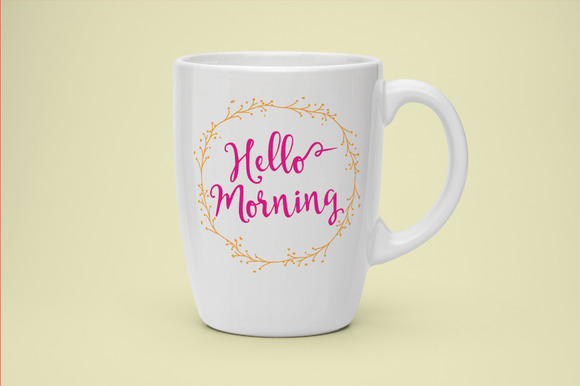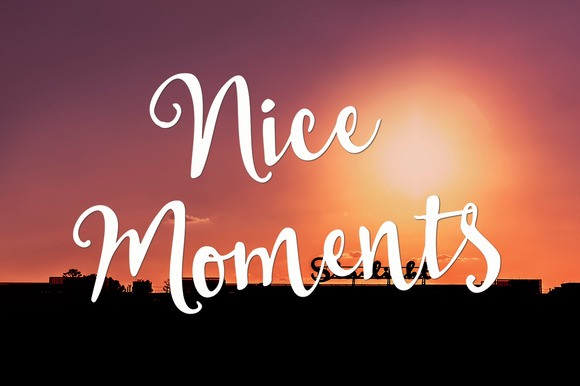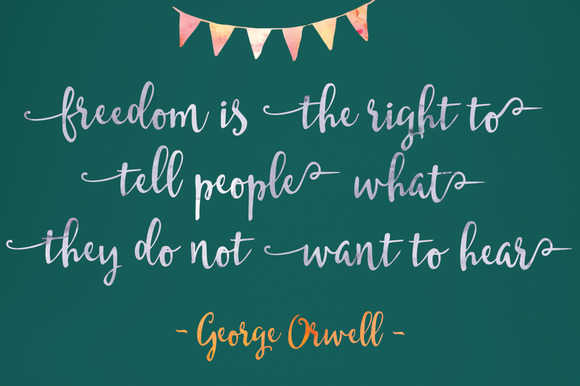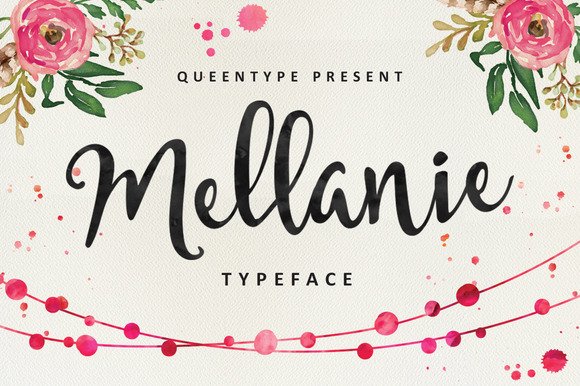
Introduction to Mellanie Typeface Font
Mellanie Typeface is a beautiful handmade script with a natural look.
Key Features of Mellanie Typeface Font
Why Choose Mellanie Typeface Font?